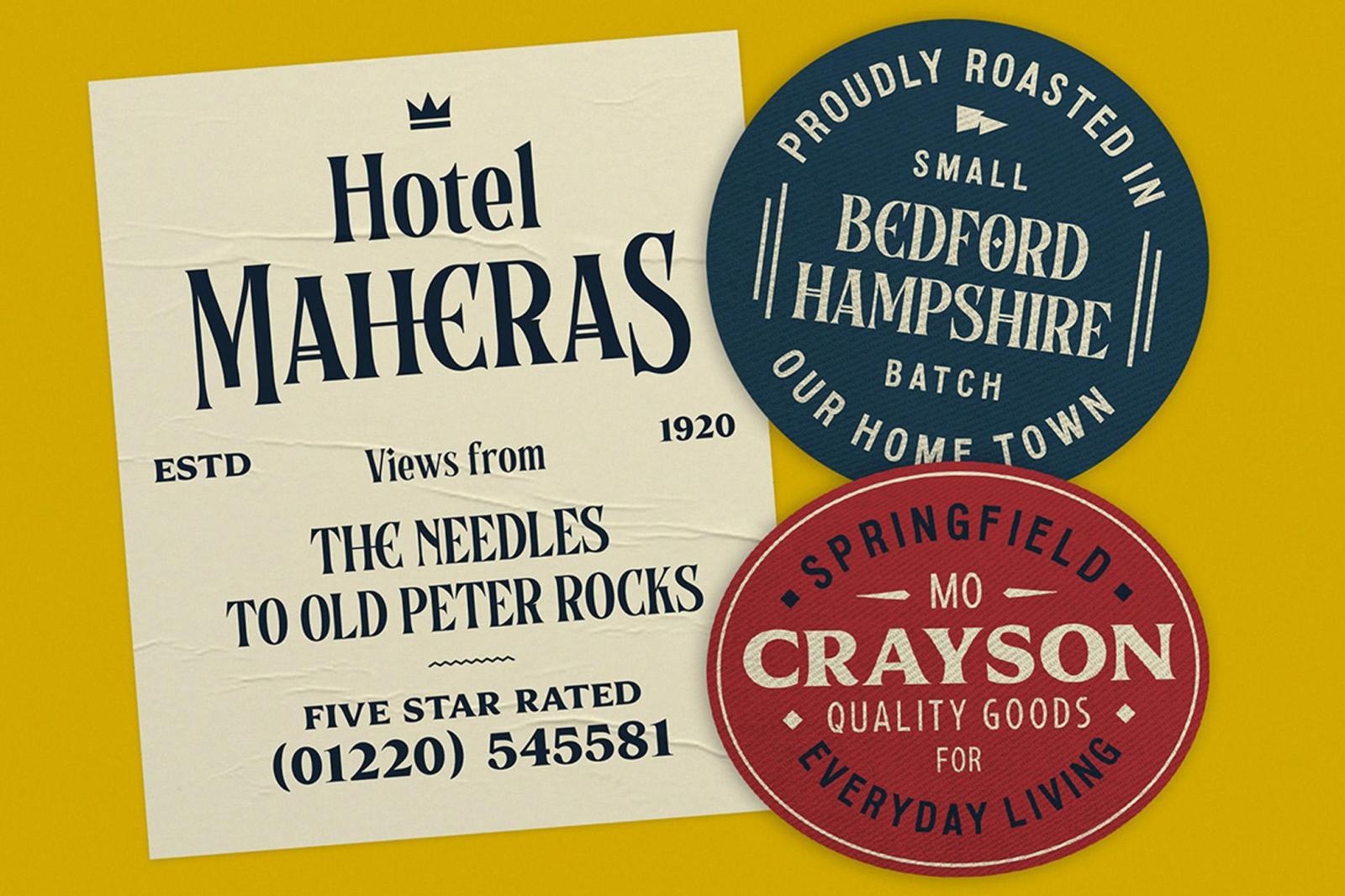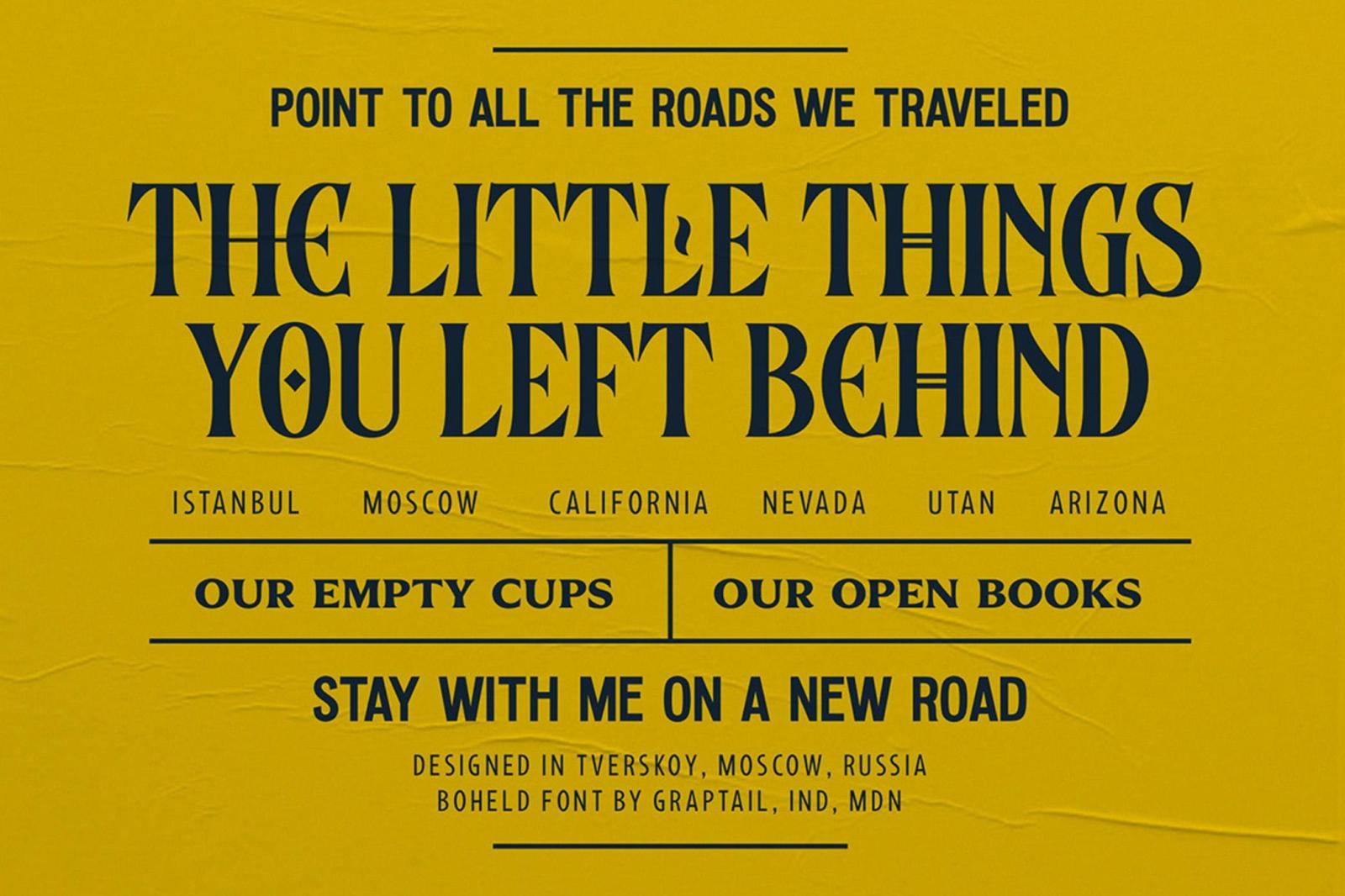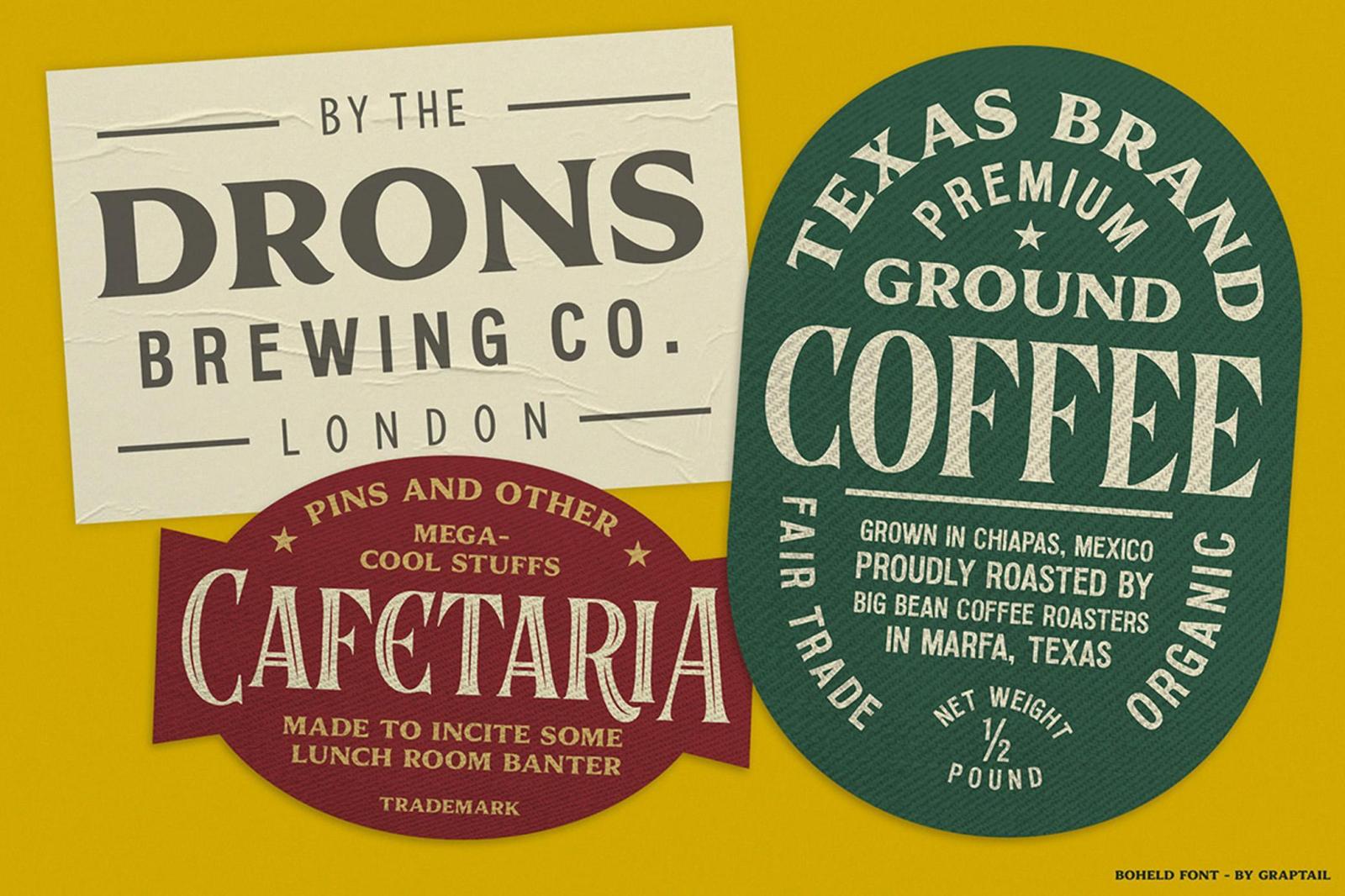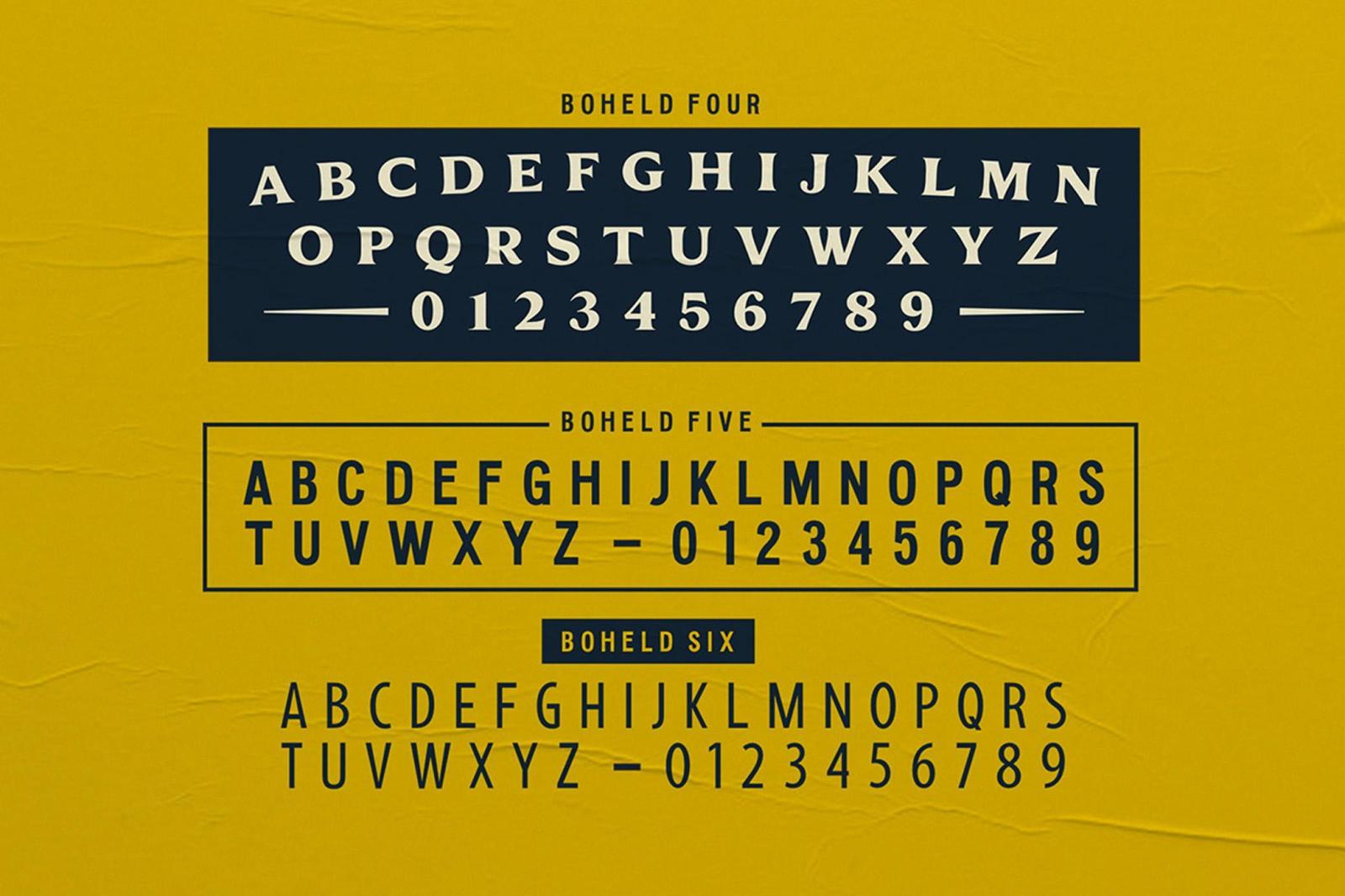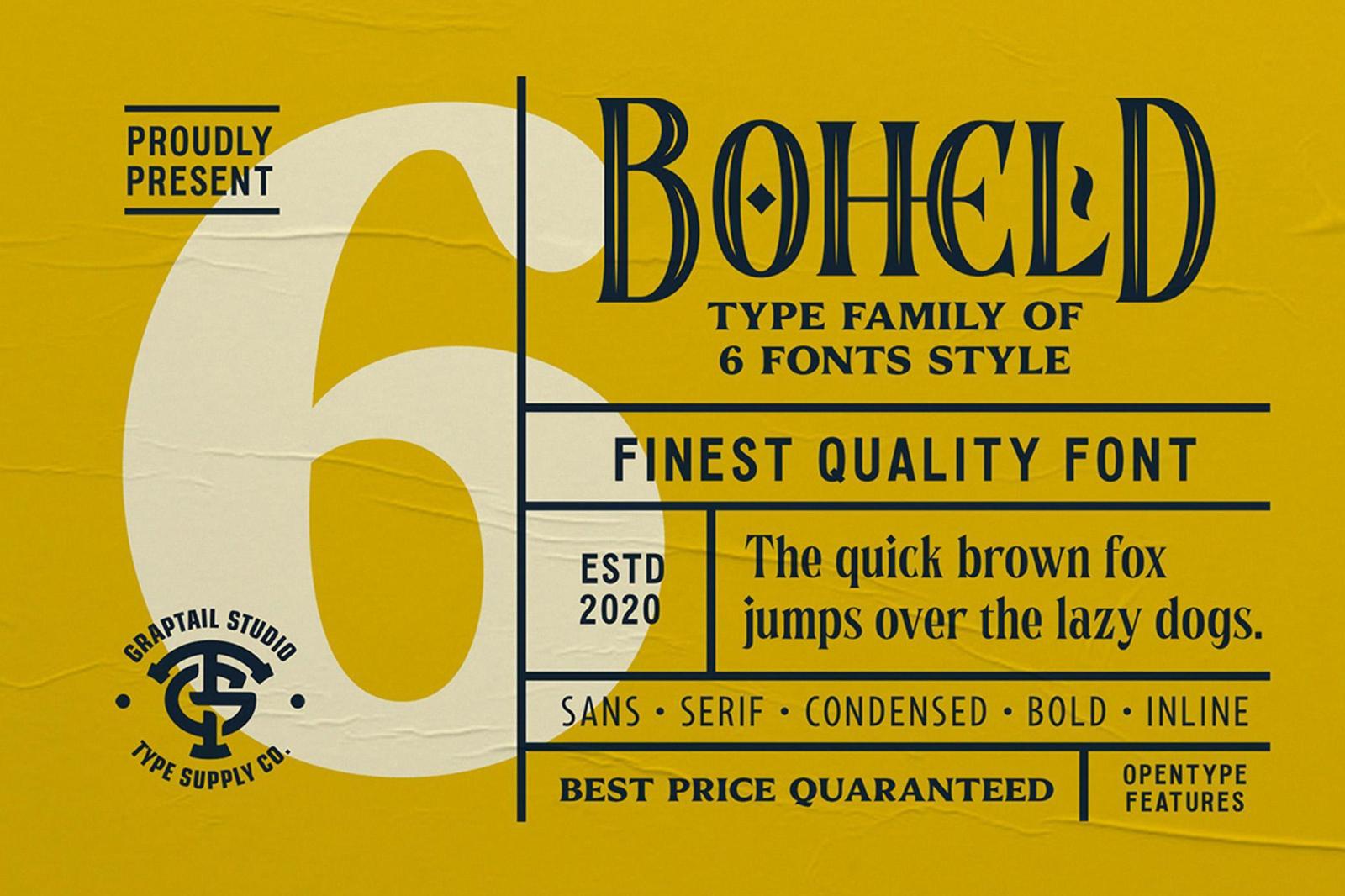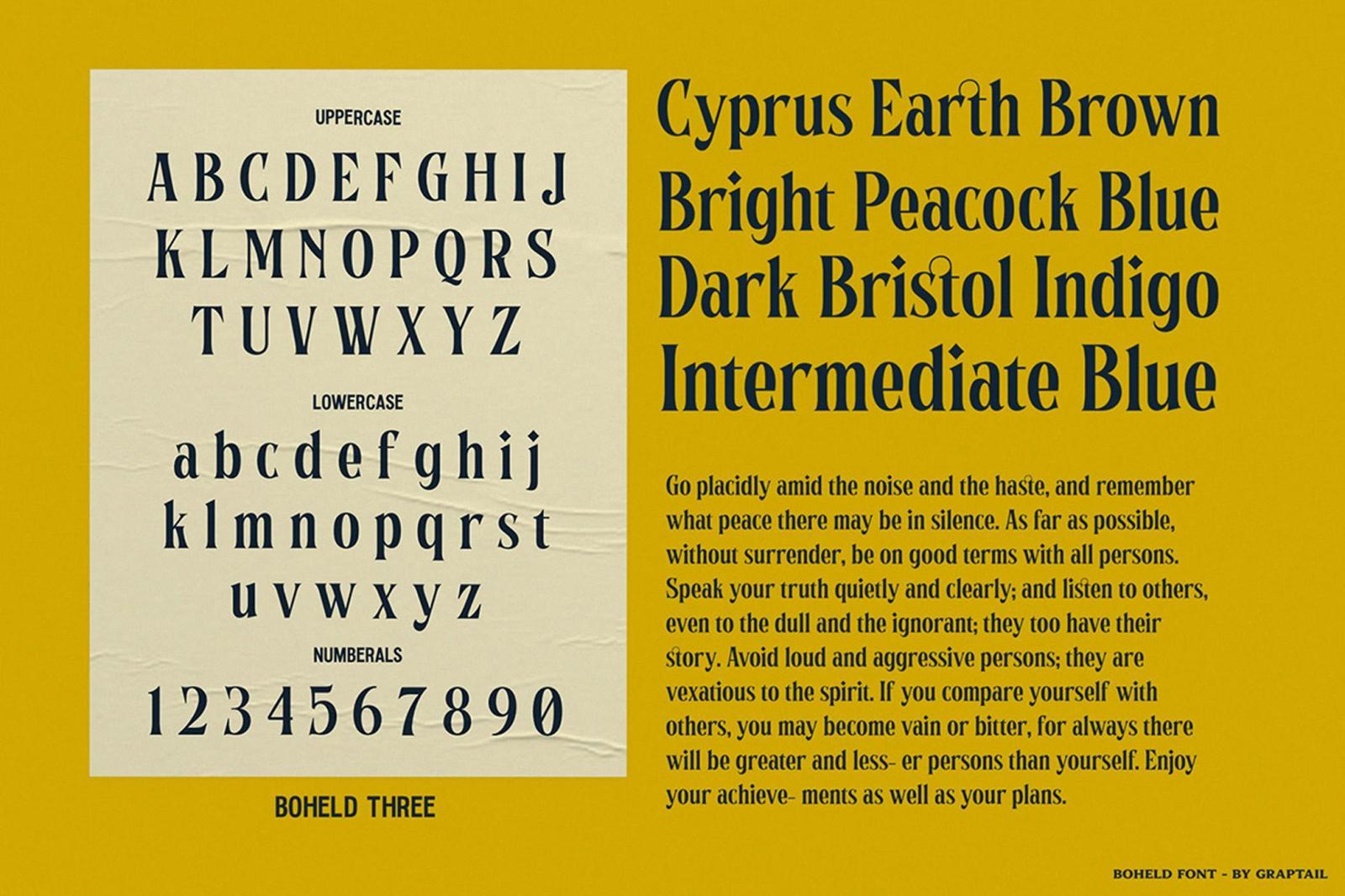
We thought it would be fun and original to sip inspiration literally from product packaging. Spirits bottles and coffee pouch labels, espcially vintage ones, can be jam-packed with rare design features, not to mention unique font finds. And it feels like the Boheld Collection is the kind: initiated from bags and boxes, it has become a genuine typographic treasury.
It was a long, fancy intro — but Boheld indeed deserves it. First, because of the most meticulously elaborated design. Second, because it comes with 6 fonts: Sans, Serif, Bold, Condensed, Serif Condensed, and Inline . Third, it's a full house, speaking technically. Each font has a complete set of characters, plus OpenType features: ligatures, alternates, and stylistic sets . No wonder why a font family with such a long list of perks is a must-have. You'll love exploring the Boheld collection for sure, but what's going to be even more enticing is using the featured fonts in the real projects: apparel prints, branding, promo materials, stickers, business cards, and more.